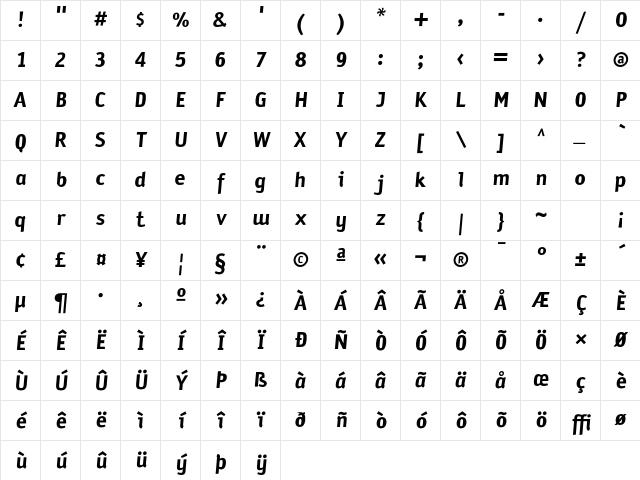
Sodium BoldItalic
Sodium Family
Sodium BoldItalic
Design Context for Sodium
Sodium is a composed and adaptable typeface that performs quietly and consistently across a wide range of design contexts. The slanted form adds forward momentum and visual energy. Its bold stroke weight gives it real presence on the page.
Pro Tip: Use Sodium for emphasis, pull quotes, and subheadings where its slanted energy can add rhythm to the layout.